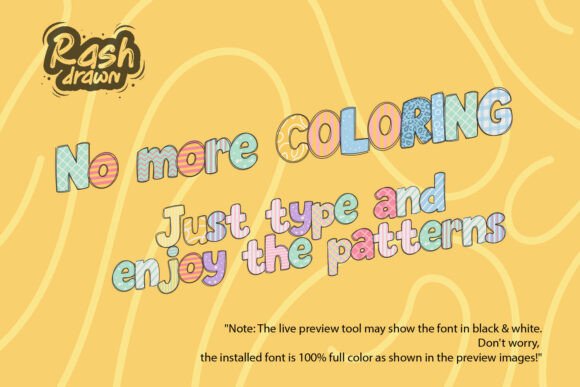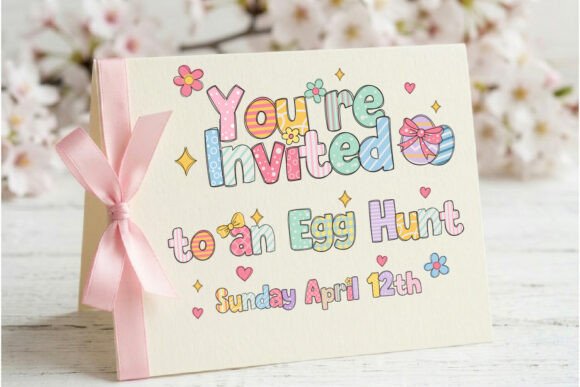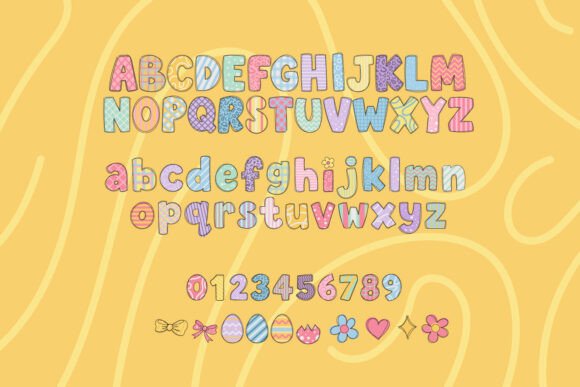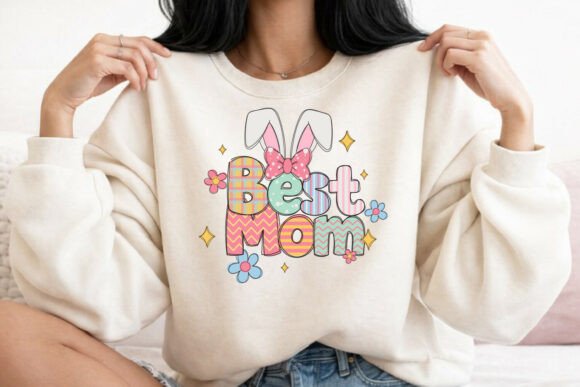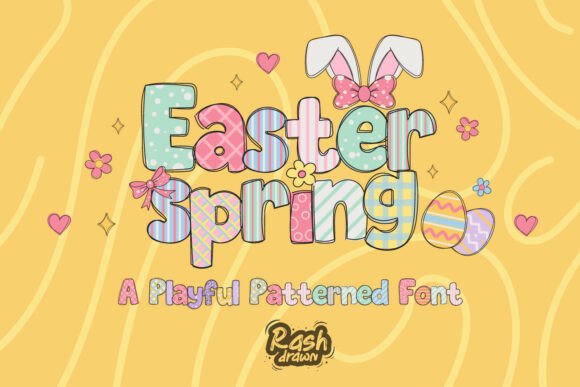
Easter Font: Bring the Magic of Spring and Easter Joy to Your Designs
Are you looking for a way to add a touch of spring and Easter magic to your designs? Look no further than the Easter Spring font, a playful patterned color font that instantly brings joy and vibrancy to your projects. This premium OpenType-SVG color font is uniquely crafted with vibrant pastel patterns, charming textures, and adorable floral accents, making it the perfect addition to your design toolkit.
What is Easter Spring Font?
Easter Spring is more than just a font; it’s an instant decorative kit for your seasonal projects. This font is designed to bring the magic of spring and the joy of Easter to your designs, making it perfect for designers, crafters, and anyone looking to add a touch of whimsy to their work. With Easter Spring, you can create beautifully decorated, patterned text in just a few clicks, saving you hours of manual coloring and design time.
Key Features of Easter Spring Font
- Complete Alphabet (A-Z): Each letter features a unique, hand-drawn pattern, including stripes, polka dots, checkers, and more.
- Vibrant Pastel Patterns: The font features a range of vibrant pastel patterns, perfect for spring and Easter-themed designs.
- Charming Textures: The font includes charming textures that add depth and interest to your designs.
- Adorable Floral Accents: The font features adorable floral accents, perfect for adding a touch of springtime charm to your designs.
- OpenType-SVG Color Font: The font is designed as an OpenType-SVG color font, making it easy to use and customize.
Benefits of Using Easter Spring Font
There are many benefits to using Easter Spring font in your designs. Here are just a few:
- Saves Time: With Easter Spring, you can create beautifully decorated, patterned text in just a few clicks, saving you hours of manual coloring and design time.
- Adds Whimsy and Charm: The font’s playful patterns and textures add a touch of whimsy and charm to your designs, making them perfect for spring and Easter-themed projects.
- Perfect for Designers and Crafters: Easter Spring is perfect for designers, crafters, and anyone looking to add a touch of springtime charm to their work.
- Customizable: The font is easy to customize, allowing you to adjust the colors, patterns, and textures to suit your design needs.
Tips for Using Easter Spring Font
Here are a few tips for using Easter Spring font in your designs:
- Experiment with Different Colors: Try out different color combinations to find the perfect look for your design.
- Mix and Match Patterns: The font’s patterns and textures can be mixed and matched to create unique and interesting effects.
- Use with Other Design Elements: Easter Spring font can be used in combination with other design elements, such as illustrations and graphics, to create visually appealing designs.
Easter Spring font is a playful patterned color font that instantly brings the magic of spring and Easter to your designs. With its vibrant pastel patterns, charming textures, and adorable floral accents, this font is perfect for designers, crafters, and anyone looking to add a touch of whimsy to their work. Whether you’re designing for children or anyone young at heart, Easter Spring font provides a professional yet wonderfully playful foundation for any spring-themed creation.